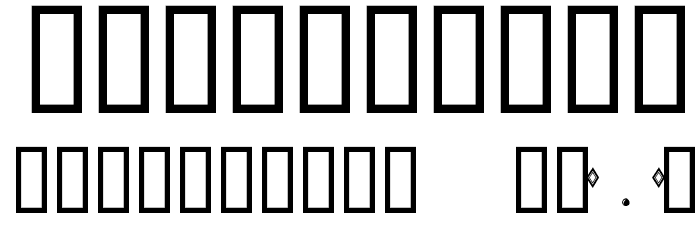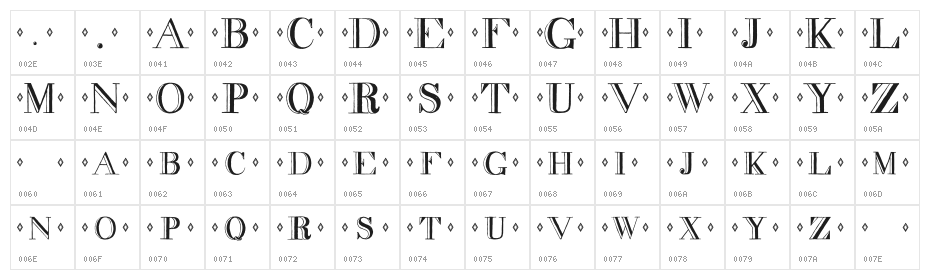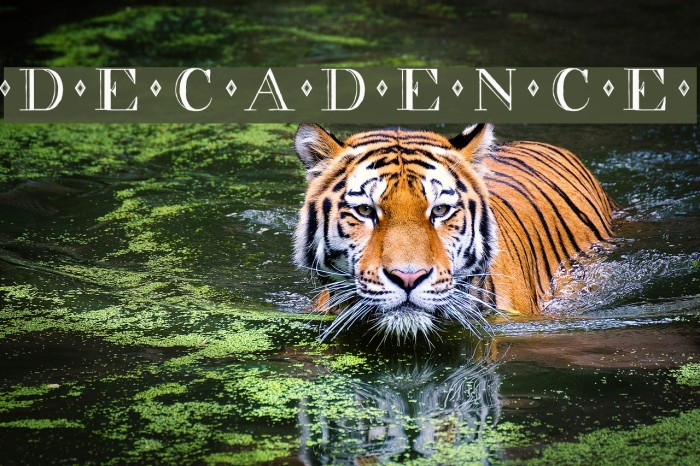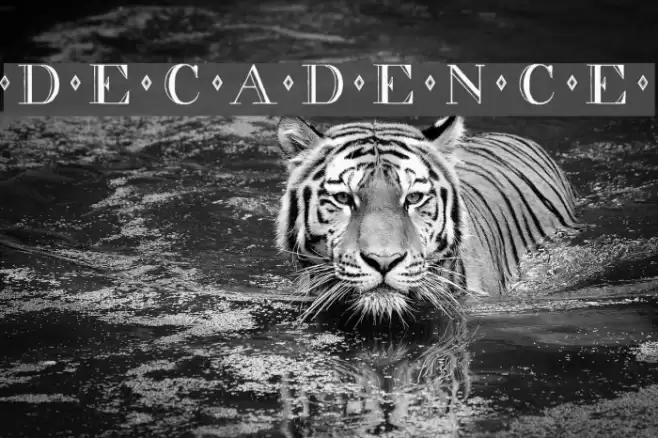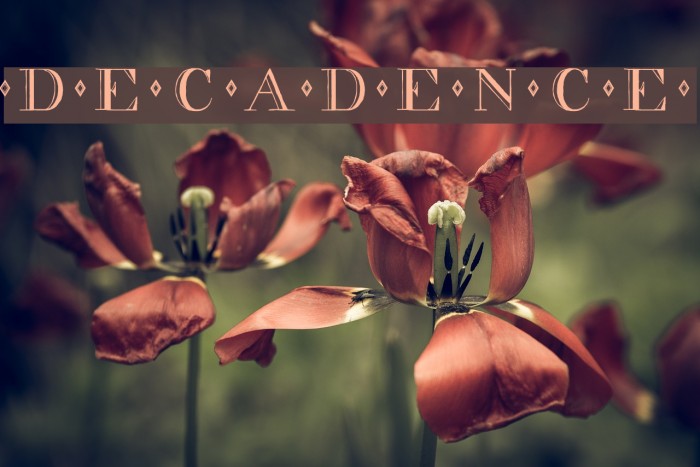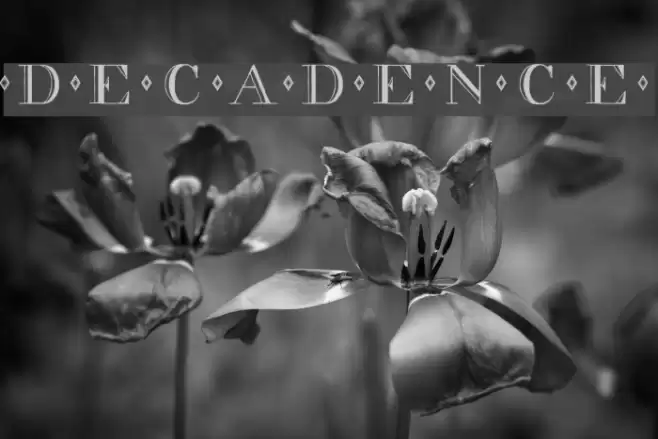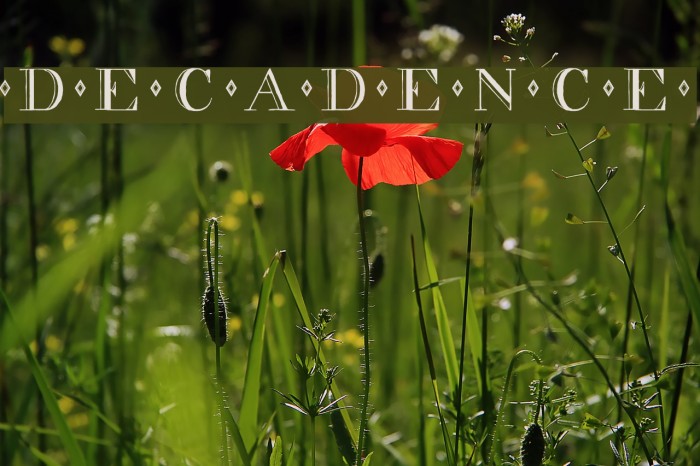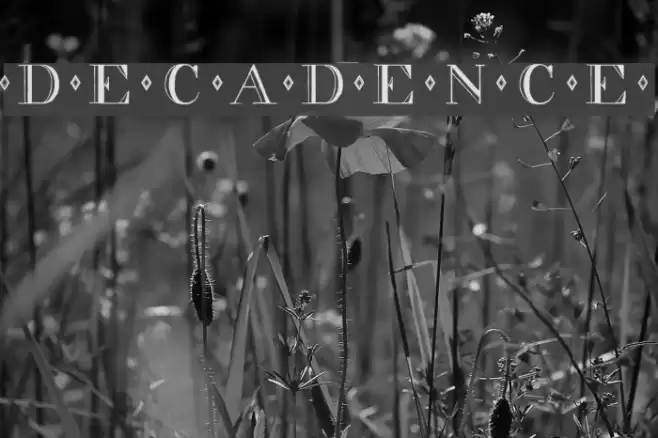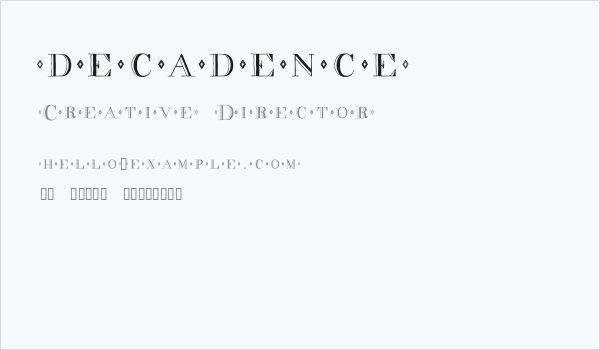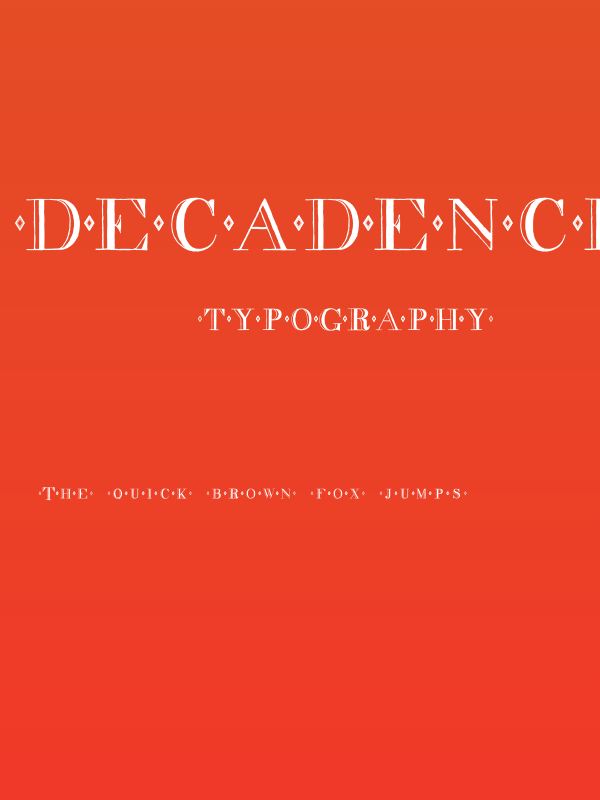
decadence Font
decadence Description
This font exudes a sense of elegance and sophistication, characterized by its decorative elements and intricate detailing. Each letter is adorned with diamond-shaped embellishments that add a touch of opulence. The uppercase letters are bold and commanding, while the lowercase letters maintain a consistent style, offering a harmonious blend of formality and flair. The numerals are uniquely styled, featuring a box-like design that contrasts with the ornate letters. Special characters are also included, maintaining the decorative theme. This font is ideal for projects that require a luxurious and classic aesthetic.
| Overall Style | Classic, Decorative |
| Proposed Projects | Ideal for luxury branding, wedding invitations, high-end product packaging, and decorative headings. |